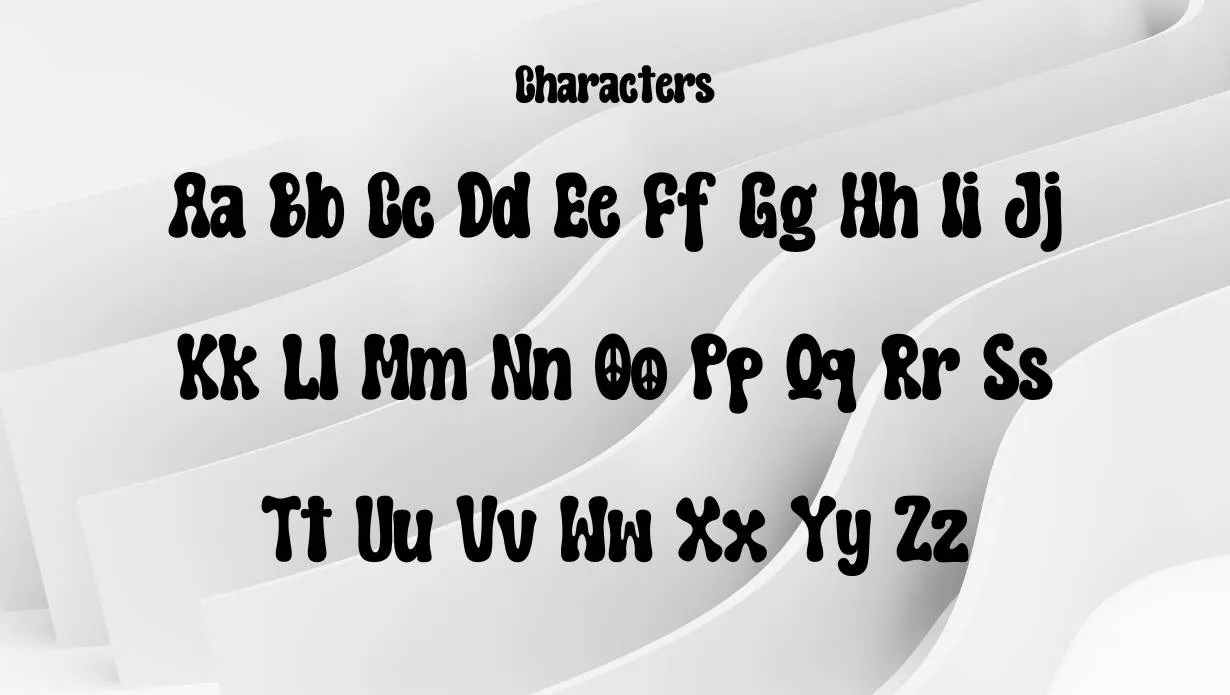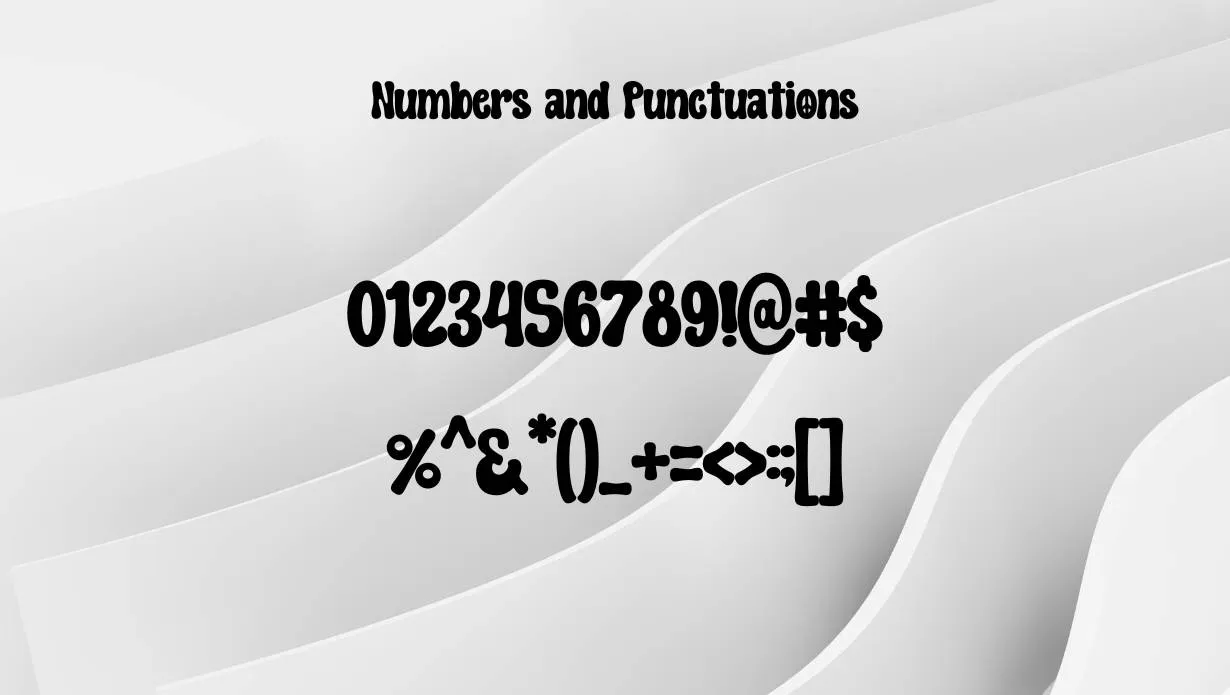
Hippie Fon was designed by Galdino Otten. The bold and eye-catching strokes of this font are an ideal choice for marketers to utilize for branding, social media posts, and Advertisement purposes. The large x-axis height and trendy look have made it popular in a short period.
You can combine this typeface with mavel font to give your project a more attractive appearance.